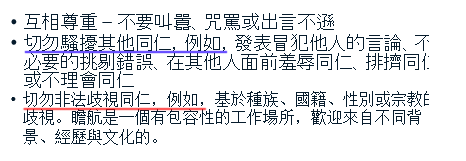
Chinese Traditional Font different in Review
I have a course that is being translated into Chinese Traditional and Vietnamese. When I work with the Chinese characters they look fine but when I do Preview, some of the characters look BOLD but they are not. In this case, two bullet points are bold and one is not. How can I correct this?
I am using the Segoe UI font. See attached examples.
line 1/2 and 3 have different font size (1 px ??? different)
the first 10 char should be a identical width
i don't think the chinese characters in your sceenshot are from the Segoe UI font - it's probably a substitute font
try to use a font with real chinese characters, e.g. Noto Sans Traditional Chinese *
otherwise it can happen that your course looks different when it is published from another computer - because there another substitute font is used
Jurgen, thank you for the reply. Right now these images are only from my computer. I tried to format the lines the same but I may have done that incorrectly. I will get the font you suggest and see if that makes a difference. I may have this same issue with Vietnamese.
I downloaded the Noto Sans TC Medium. I worked at replacing the existing fonts of Georiga, Open Sans Light and others. Now when I preview, Storyline crashes.
I also found that using the replace fonts command does not work on all of the slides. I hate to think I have to do this slide by slide. My client used all kinds of fonts in their PPT version.
Is there another font Storyline likes?
the microsoft font for traditional chinese is JhengHei
Chinese (Traditional, Hong Kong SAR)
I can try the JhengHei but I am finding that Arial Unicode MS works. It looks good and Storyline does not crash when I preview it.
Jürgen, I did find the jhengHei and did not realize it is in the list of Microsoft fonts. I found it looking in my fonts folder. This font works well and looks great. Now I will convert all of the fonts the client used to this one.